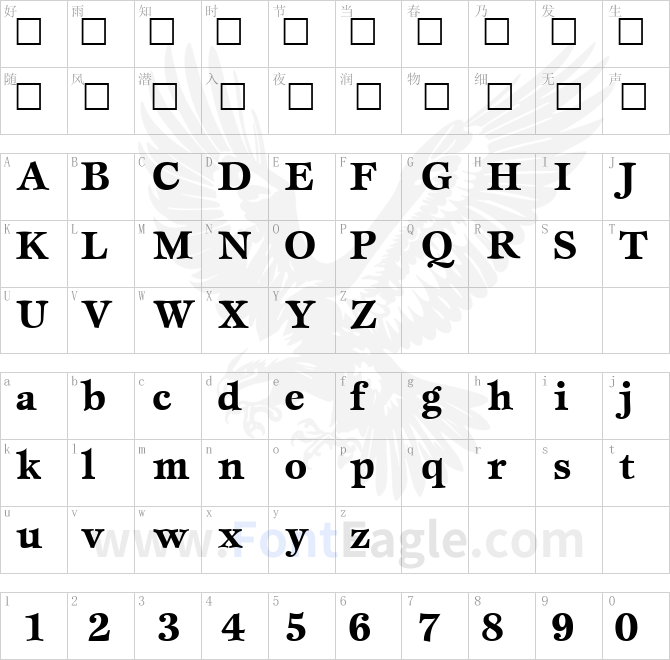
- Font name:Esprit
- Font Subfamily ID:Altsys Fontographer 3.5 Esprit Bold
- Font Full Name:Esprit Bold
- Font Version:Altsys Fontographer 3.5 11/24/92
- Postscript:EspritBold
- Font Copyright:Copyright 1992 Image Club Graphics, Inc.